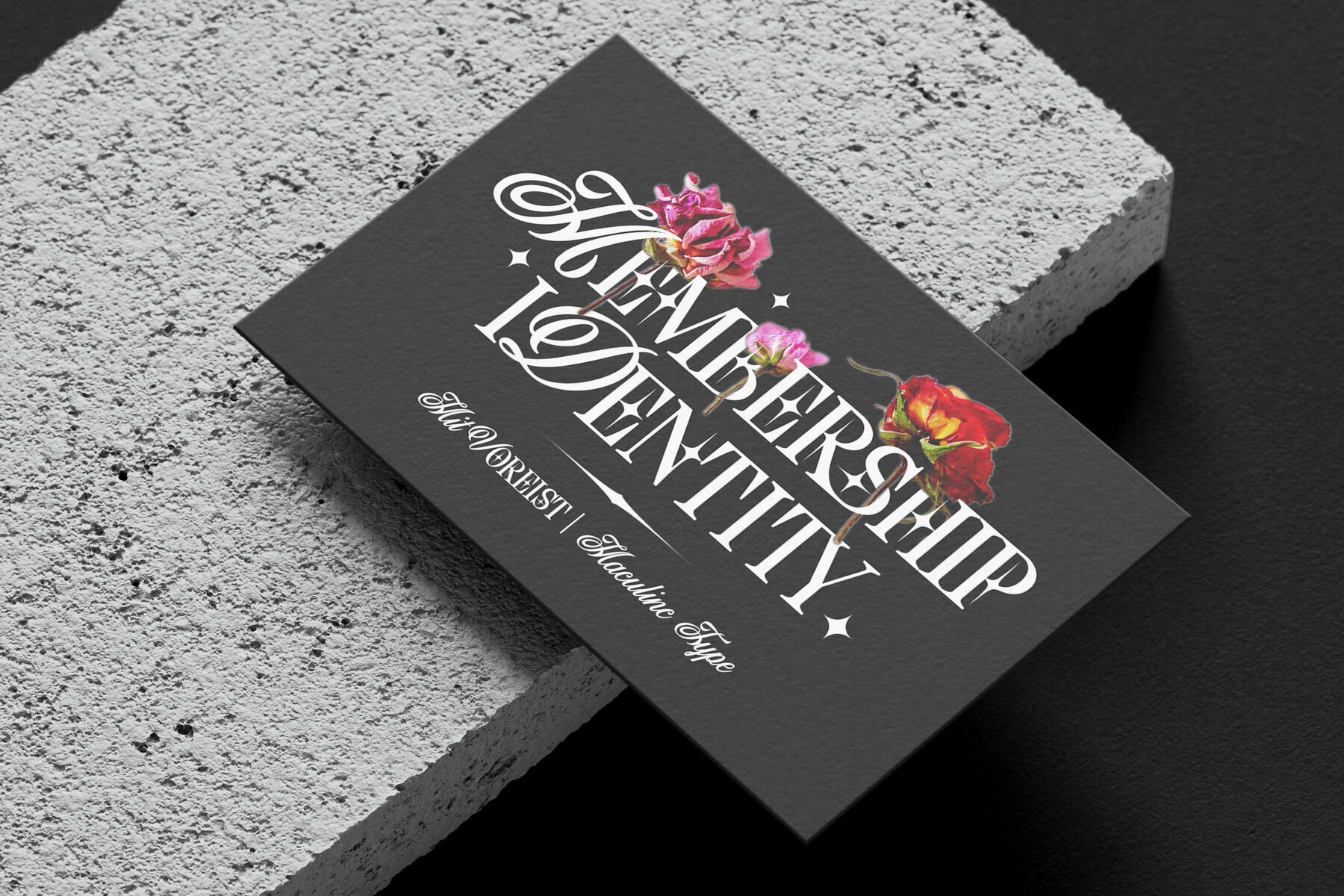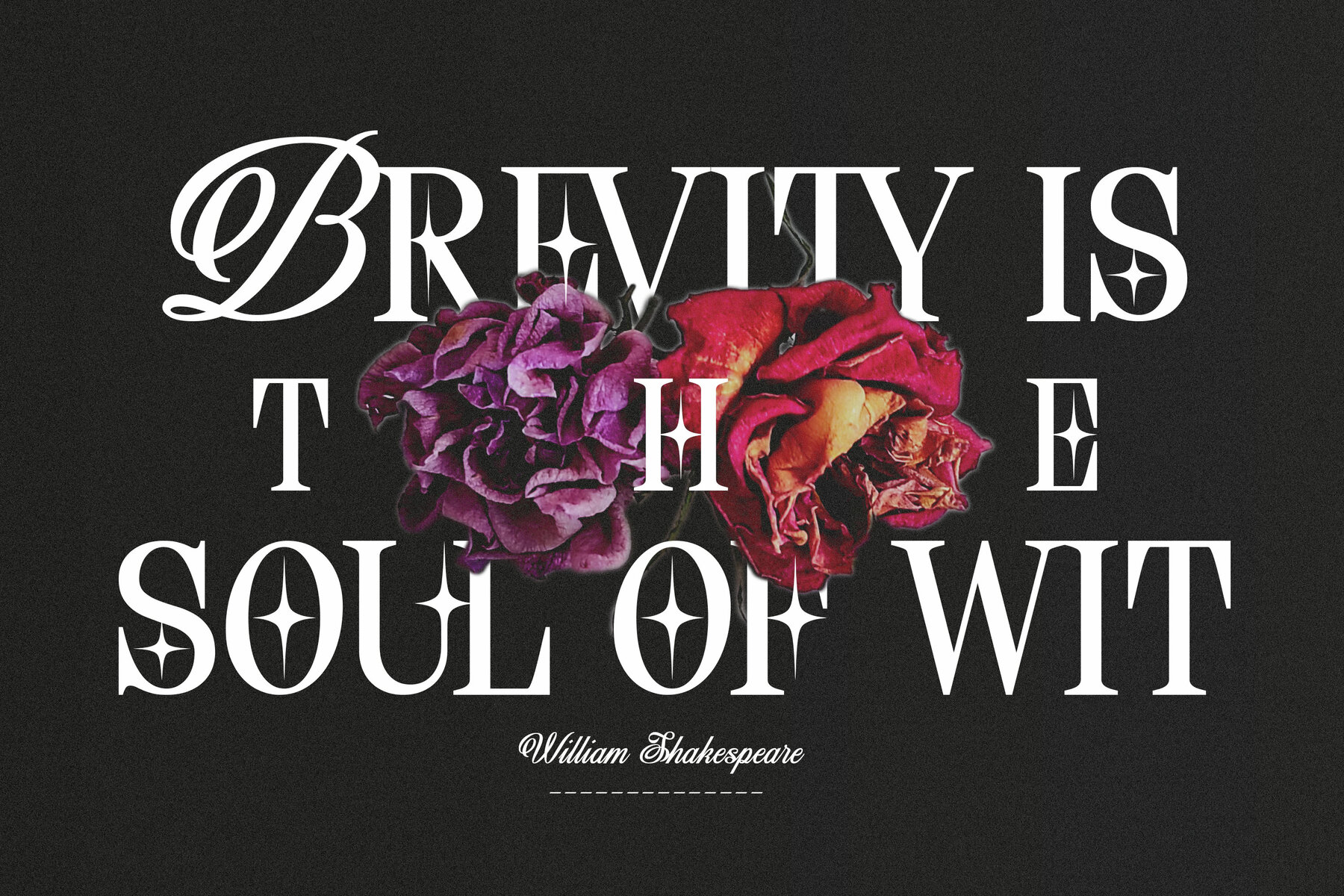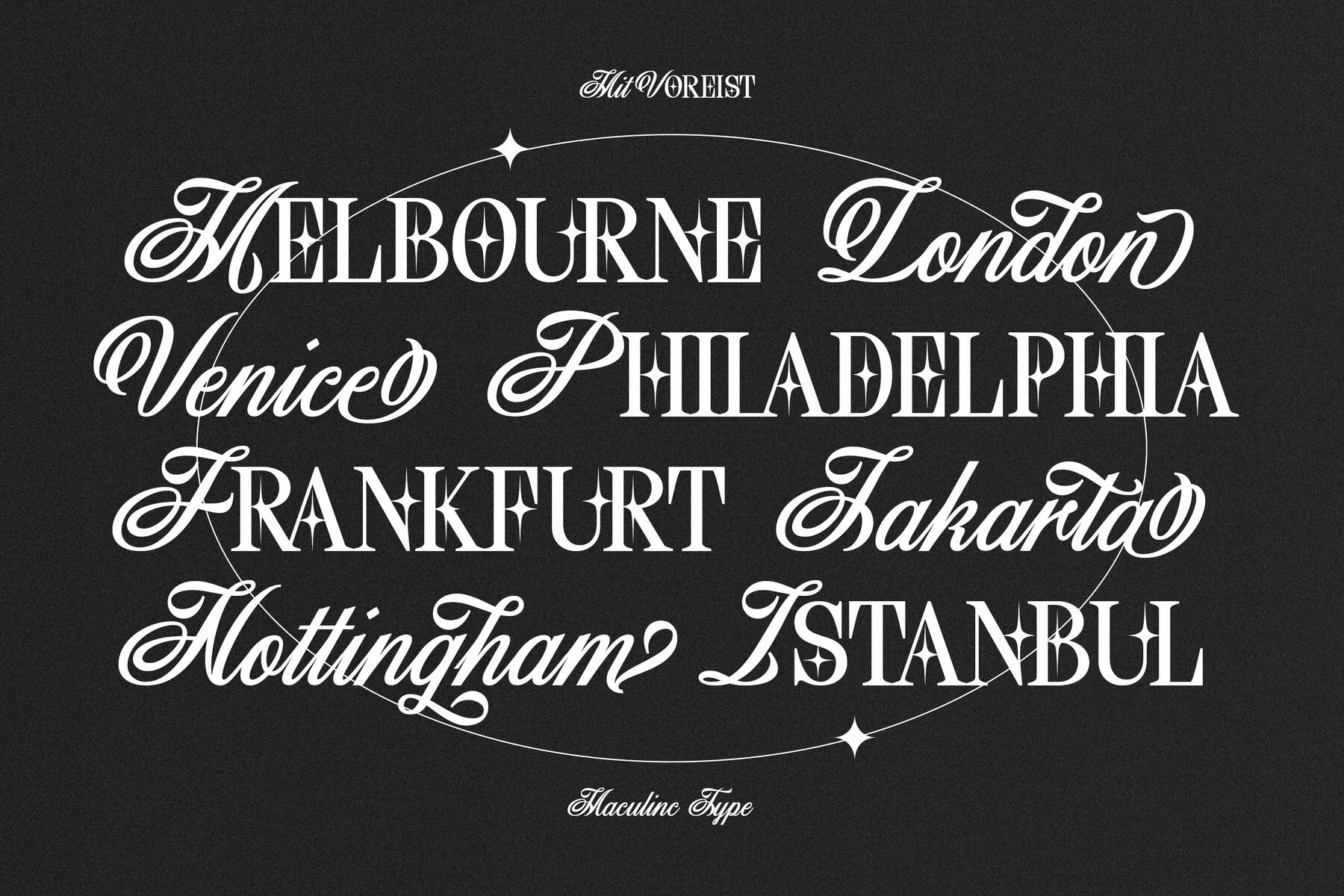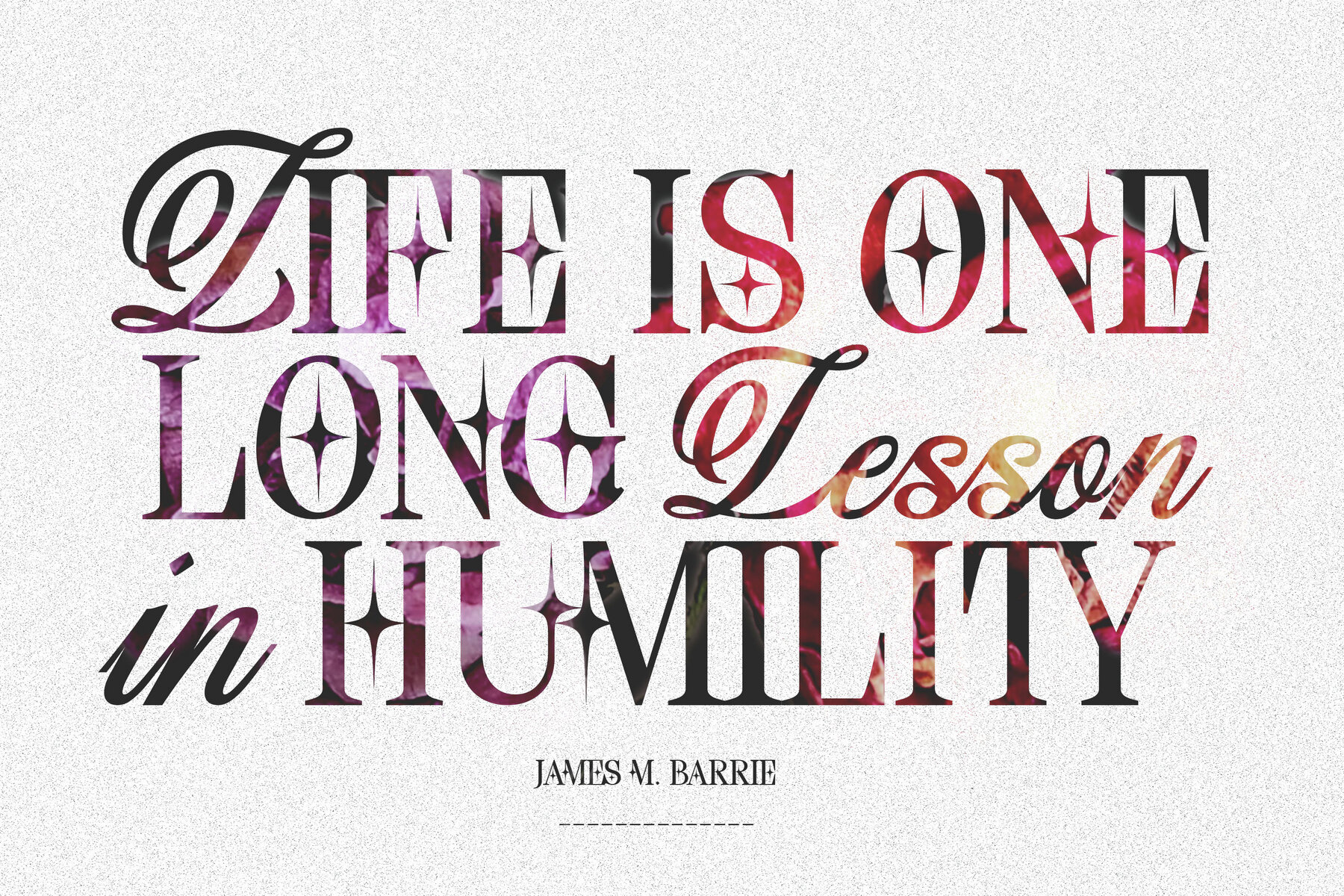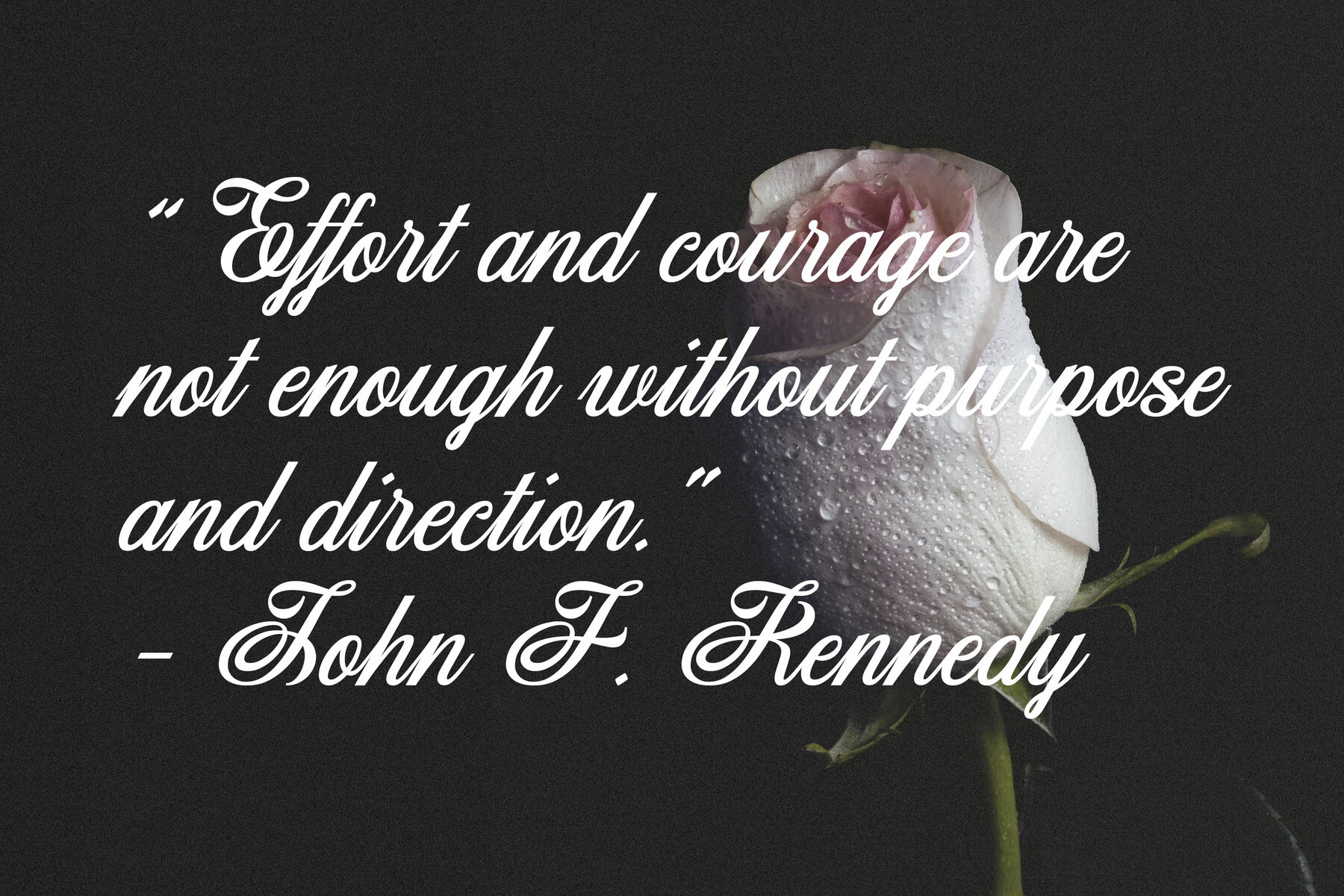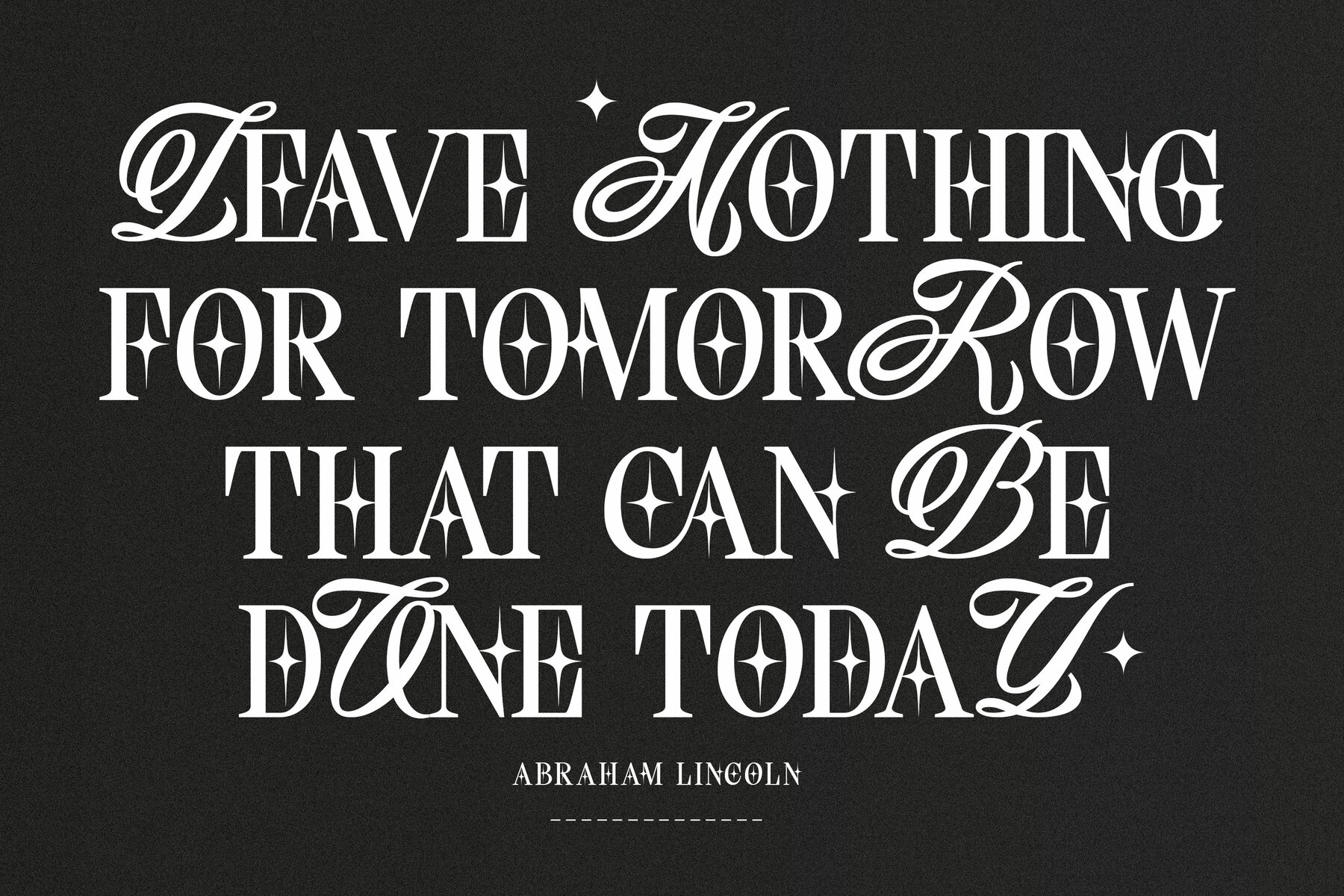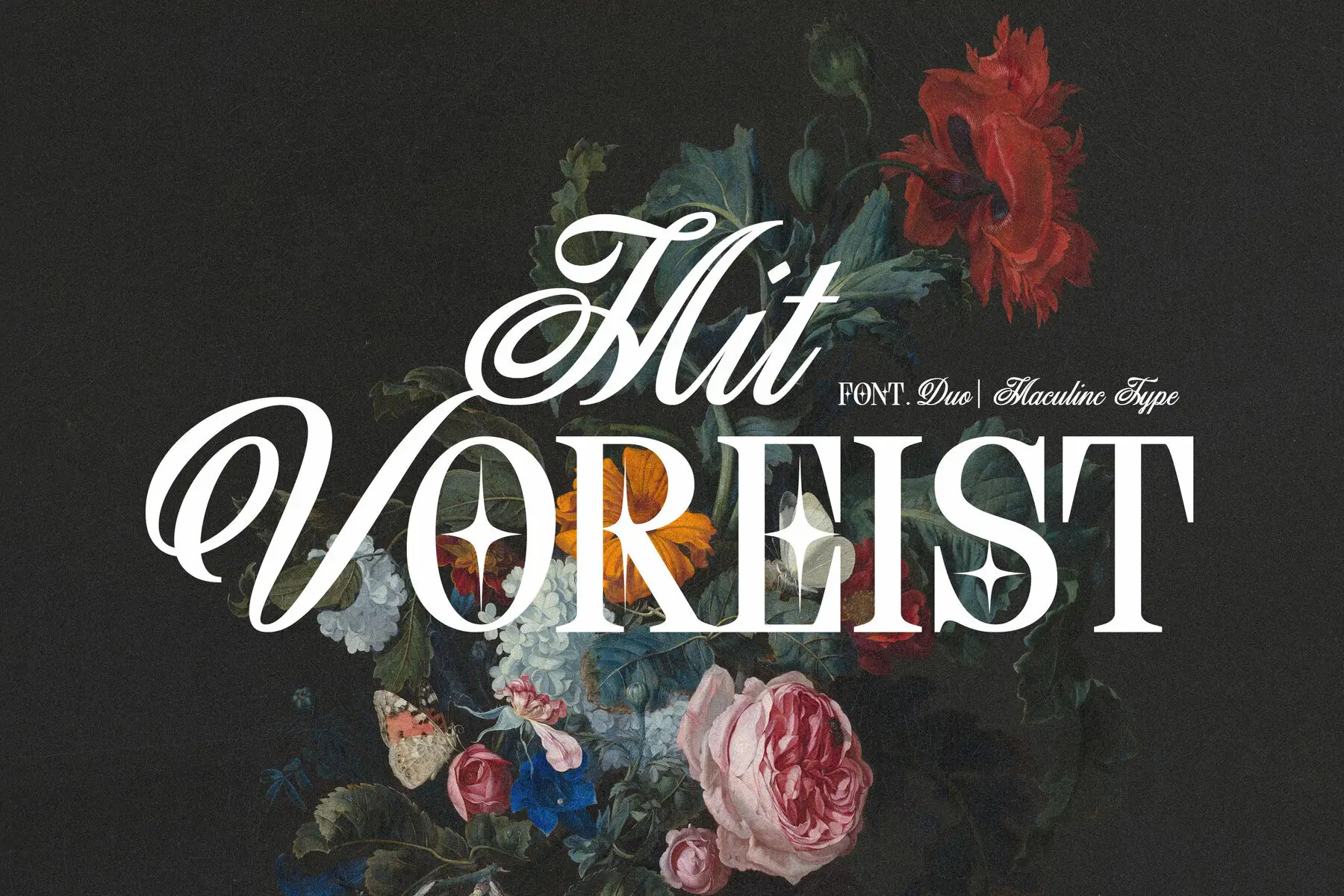
MIT Voreist Font
Mit Voreist marries the elegance of Serif and Script fonts to create a timeless style that resonates with both masculine and feminine attributes. This font stands out with its soft curves and subtle embellishments, including stars, accentuating its high-contrast glyphs. Ideally suited for crafting memorable designs, Mit Voreist shines in quotes, titles, logos, business cards, and more. Whether designing for magazines or product packaging, mixing its Script and Serif styles will result in an exquisite visual narrative.Mit Voreist: Classic Serif and Script Fusion